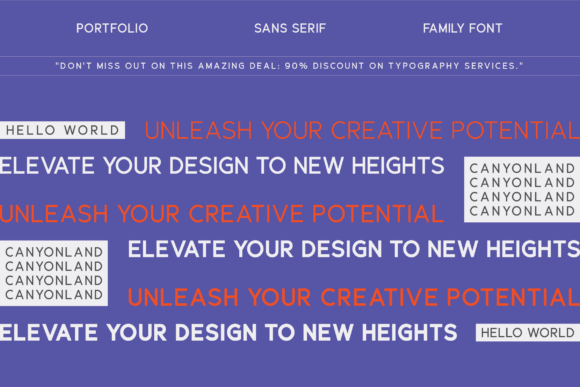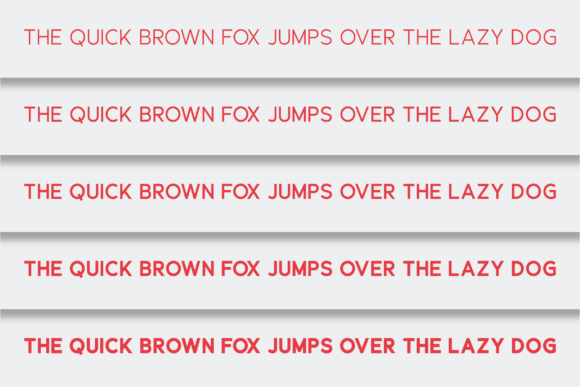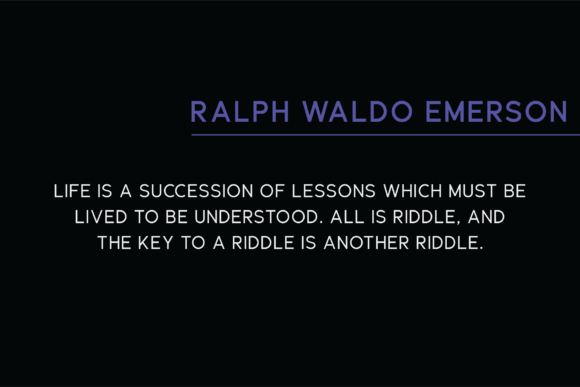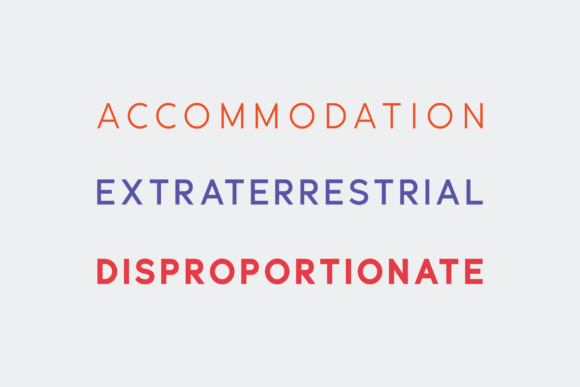
Introducing Canyonland Font Family — A Masterpiece of Elegance and Minimalism
In the realm of typography, few font families have managed to capture the essence of modern design as elegantly as Canyonland Font. This meticulously crafted sans-serif font family is a game-changer for designers and crafters looking to infuse their projects with a touch of sophistication and a dash of contemporary luxury. With its 5 distinct weights, Canyonland Font offers unparalleled versatility, making it the perfect companion for a wide array of projects, from stylish magazines and logos to captivating film posters and beyond.
The Genesis of Elegance and Minimalism
Canyonland Font was born out of a passion for precision and an eye for detail. Its design strikes the perfect balance between sophistication and simplicity, allowing your creations to exude a timeless charm that never goes out of style. Whether you’re working on a high-end brand identity, a sleek magazine layout, or a bold film poster, Canyonland Font provides the perfect typographic solution. Its clean lines, subtle curves, and carefully considered letter spacing come together to create a font family that is not only beautiful but also highly legible across various applications.
One of the standout features of Canyonland Font is its impressive range of weights, offering designers the flexibility to adapt their typography to the specific needs of their project. From the light, airy feel of its lighter weights to the strong, assertive presence of its heavier weights, Canyonland Font allows for a level of creative expression that is hard to match. This versatility makes it an invaluable asset for designers who need a reliable, high-quality font that can seamlessly transition across different mediums and design applications.
Applications of Canyonland Font
The potential applications for Canyonland Font are vast and varied. Here are a few examples of how this incredible font family can elevate your designs:
- Magazines and Editorial Design: Use Canyonland Font to give your magazine or editorial project a sleek, modern look that draws readers in and keeps them engaged.
- Logos and Branding: Create a lasting impression with a logo that exudes elegance and sophistication. Canyonland Font’s range of weights makes it perfect for crafting everything from subtle, minimalist logos to more assertive, impactful brand identities.
- Film Posters and Marketing Materials: Make your film posters and marketing materials stand out with a typography that commands attention yet maintains an air of class and refinement.
- Web Design: Enhance your website’s aesthetic with Canyonland Font, adding a touch of luxury and modernity that sets your site apart from the competition.
Unlocking Creativity with Canyonland Font
Canyonland Font is more than just a font family; it’s a tool for unlocking your creative potential. Its elegant design and versatile nature make it the perfect choice for designers looking to push the boundaries of their work. By incorporating Canyonland Font into your design arsenal, you’re not just selecting a font; you’re embracing a design philosophy that values clarity, sophistication, and creativity.
In conclusion, Canyonland Font is a masterpiece of modern typography that offers designers and crafters a unique blend of elegance, minimalism, and versatility. Whether you’re working on a high-profile branding project, a stylish editorial piece, or a bold advertising campaign, Canyonland Font provides the perfect typographic foundation. With its range of weights, impeccable design, and adaptability, Canyonland Font is set to become your go-to font family for projects that demand a little extra sophistication and a lot of creativity. Transform your designs with Canyonland Font today and discover a new level of typographic excellence.